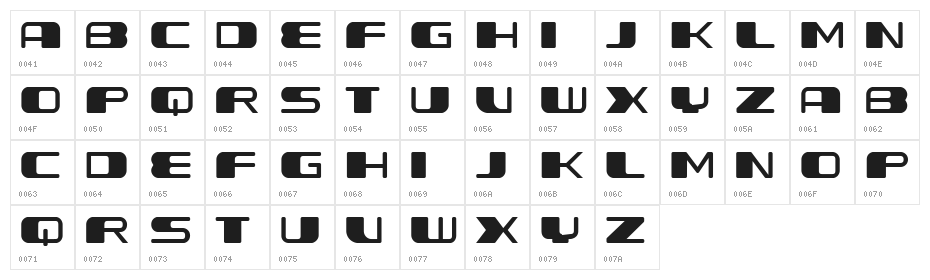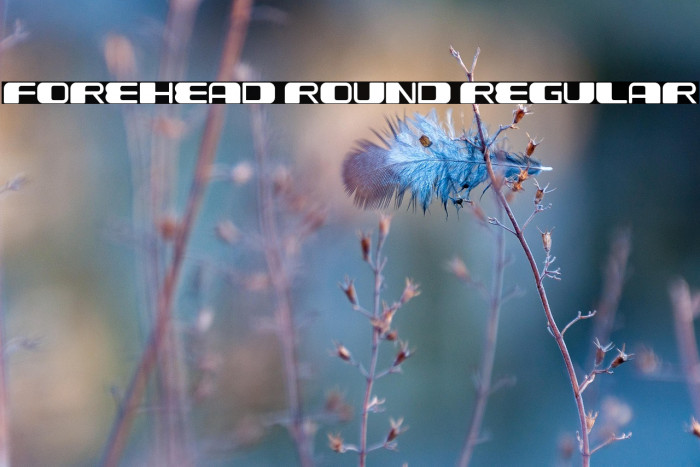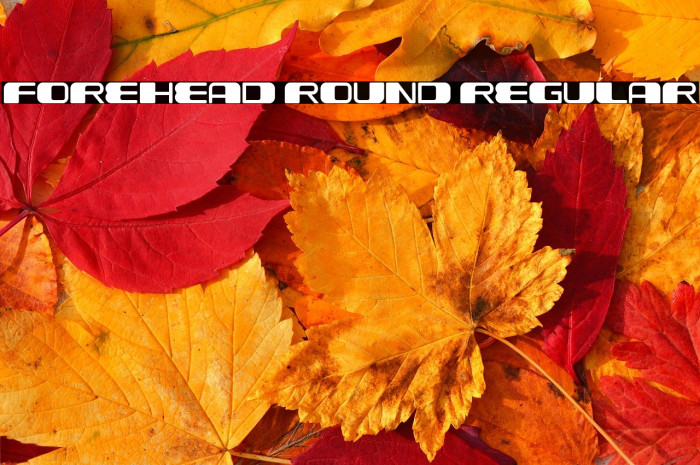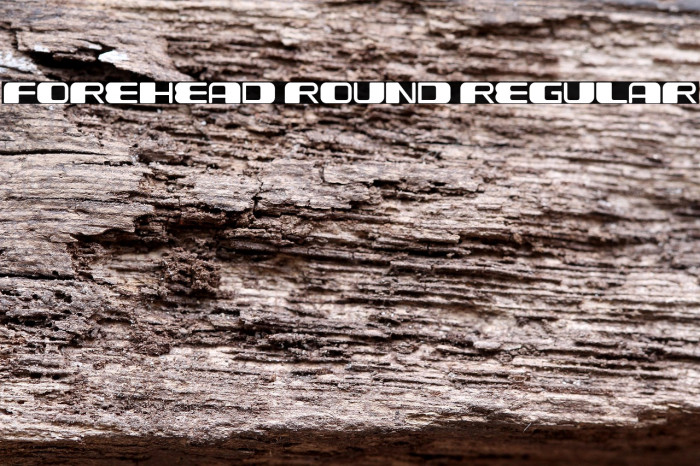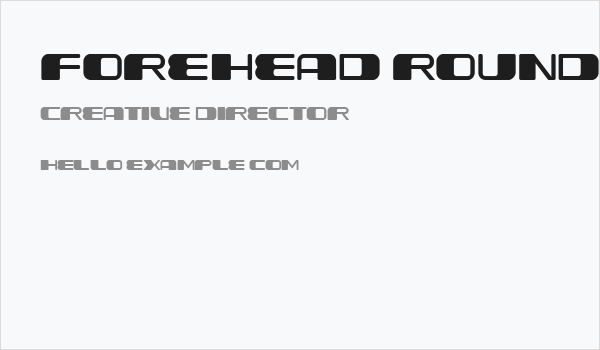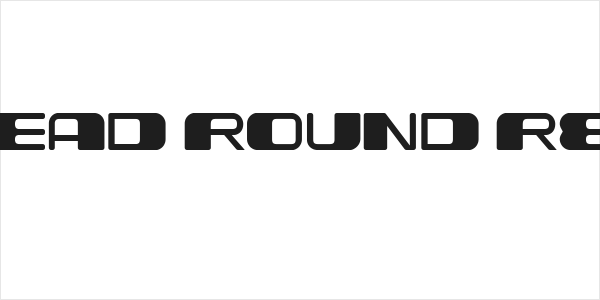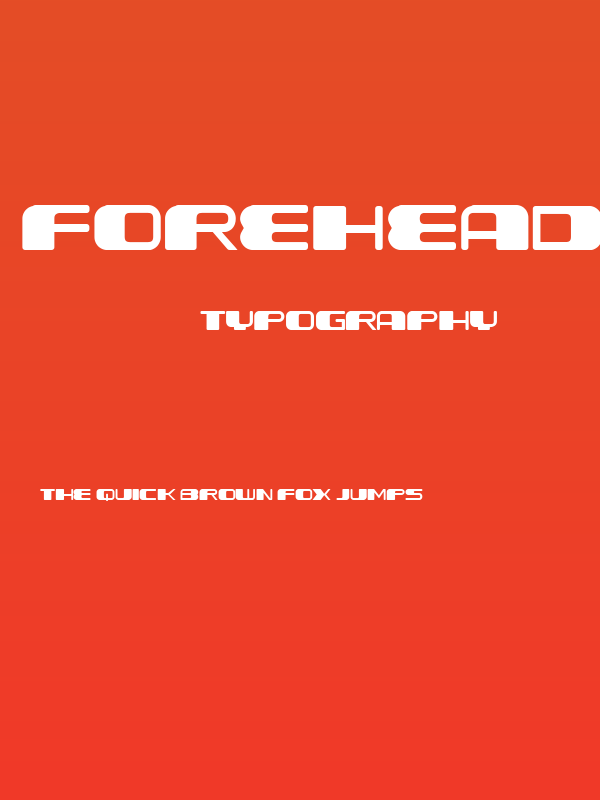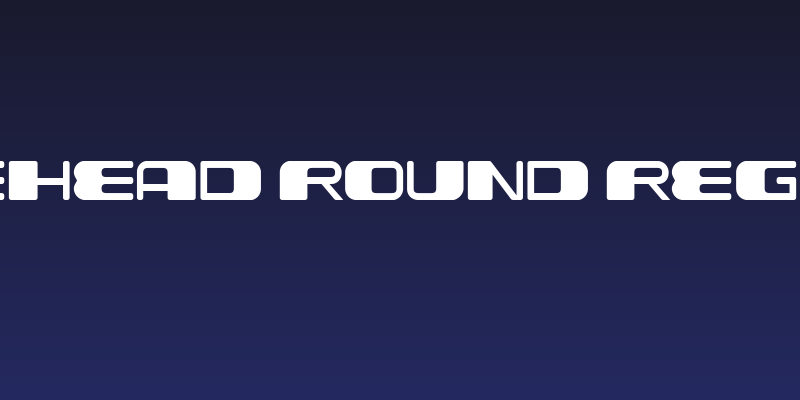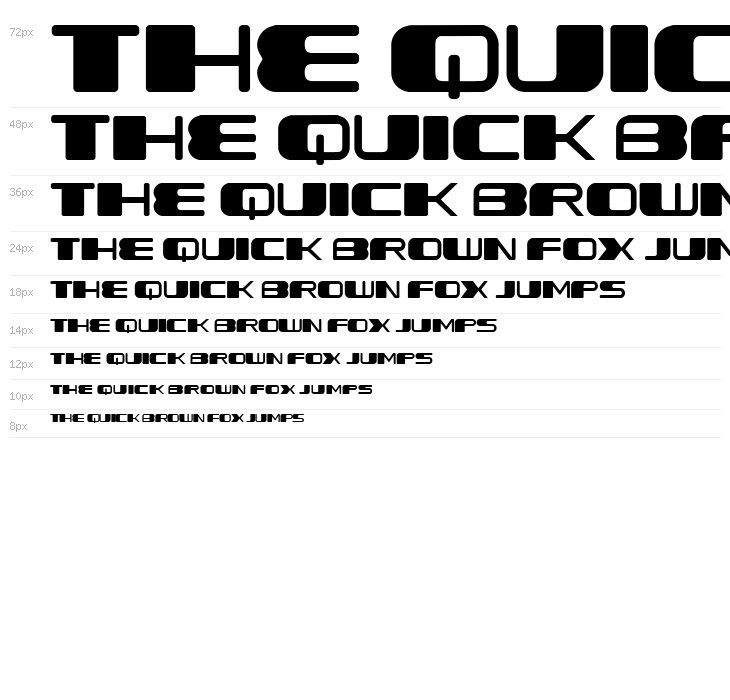
Forehead Round Regular Font
Forehead Round Regular Description
This font features a bold and futuristic design with rounded edges and a geometric structure. The characters are wide and have a strong presence, making them ideal for attention-grabbing headlines and modern design projects. The uniformity in stroke width across all characters gives it a cohesive and balanced look. Its distinct style is characterized by the smooth curves and sharp angles, creating a dynamic and contemporary aesthetic. The font's unique appearance makes it suitable for branding, advertising, and digital media where a modern and bold statement is desired.